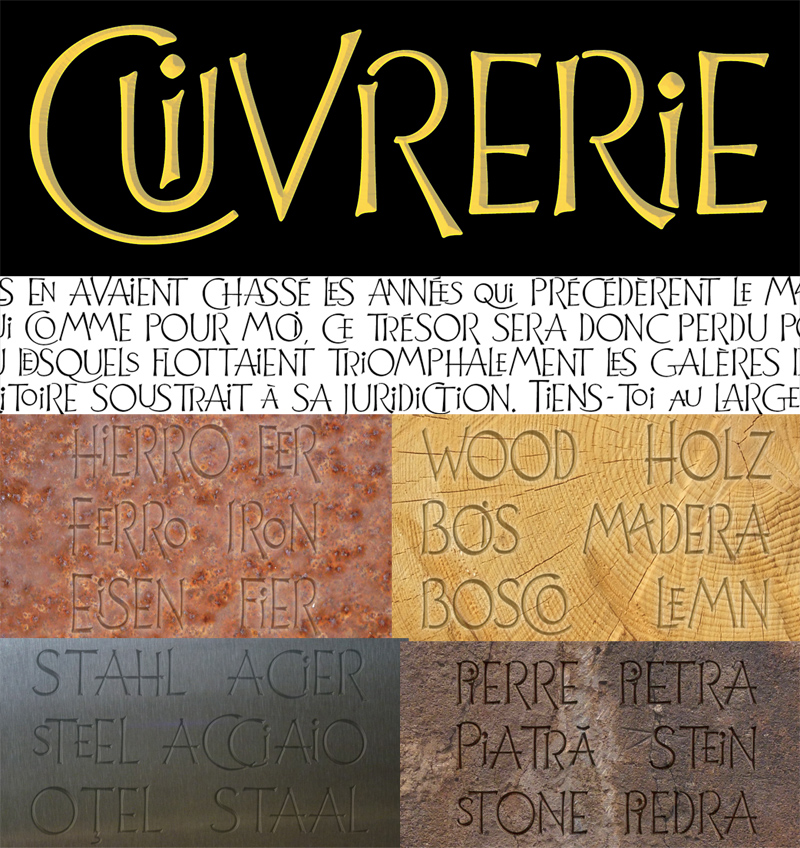
Font name: | Cuivrerie |
Author: | JBFoundry |
Note by JBFoundry | |
Cuivrerie is a free interpretation of relatively common lapidary inscriptions in Burgundy. Letters fit together. Thus the engraver gains room and we lose legibility. No matter, we have forever to read ! (Ligatures must be actives) This font is for personal use only ! To purchase the full font, visit: http://www.myfonts.com/fonts/jbfoundry/cuivrerie/ More fonts here : http://www.myfonts.com/foundry/JBFoundry/ |